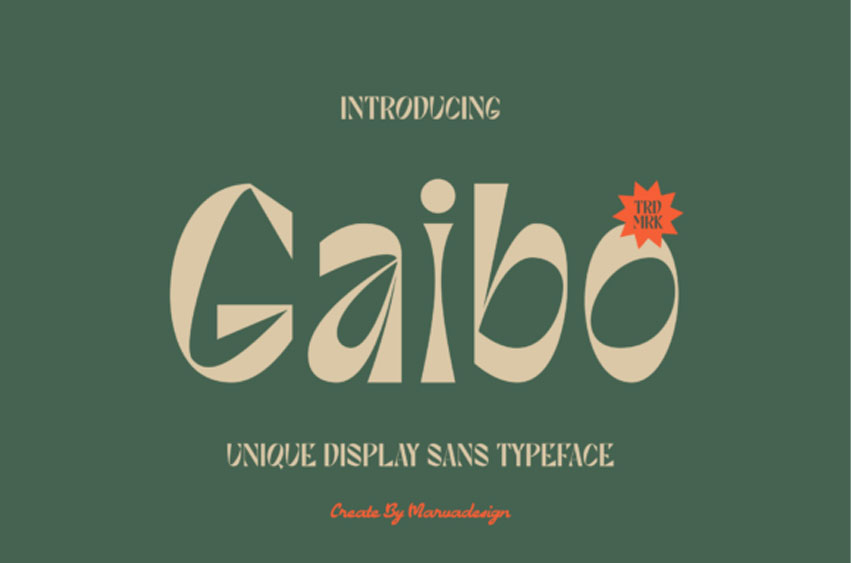
Gaibo Font is a unique display sans typeface that merges bold geometric cuts with smooth organic curves. Designed by Marvadesign, it delivers a modern yet artistic aesthetic, perfect for projects that require creativity and instant visual impact.
Gaibo carries a distinctive style where sharp edges meet rounded forms, resulting in a playful yet professional look. It supports uppercase letters from A to Z, numerals from 0 to 9, and a selection of symbols and special characters. The font’s striking personality makes it suitable for both digital and print use across various design fields.
This typeface is an excellent choice for brand identity systems, editorial headlines, poster artwork, stylish packaging, lifestyle branding, and creative advertising. It works beautifully in social media graphics as well, bringing a bold and modern edge to every composition.
Gaibo is a standout option when a project calls for an artistic yet contemporary voice. Its combination of quirky forms and strong readability ensures that every design captures attention while remaining clear and impactful. Designers seeking originality and character in their typography will find Gaibo an inspiring tool.